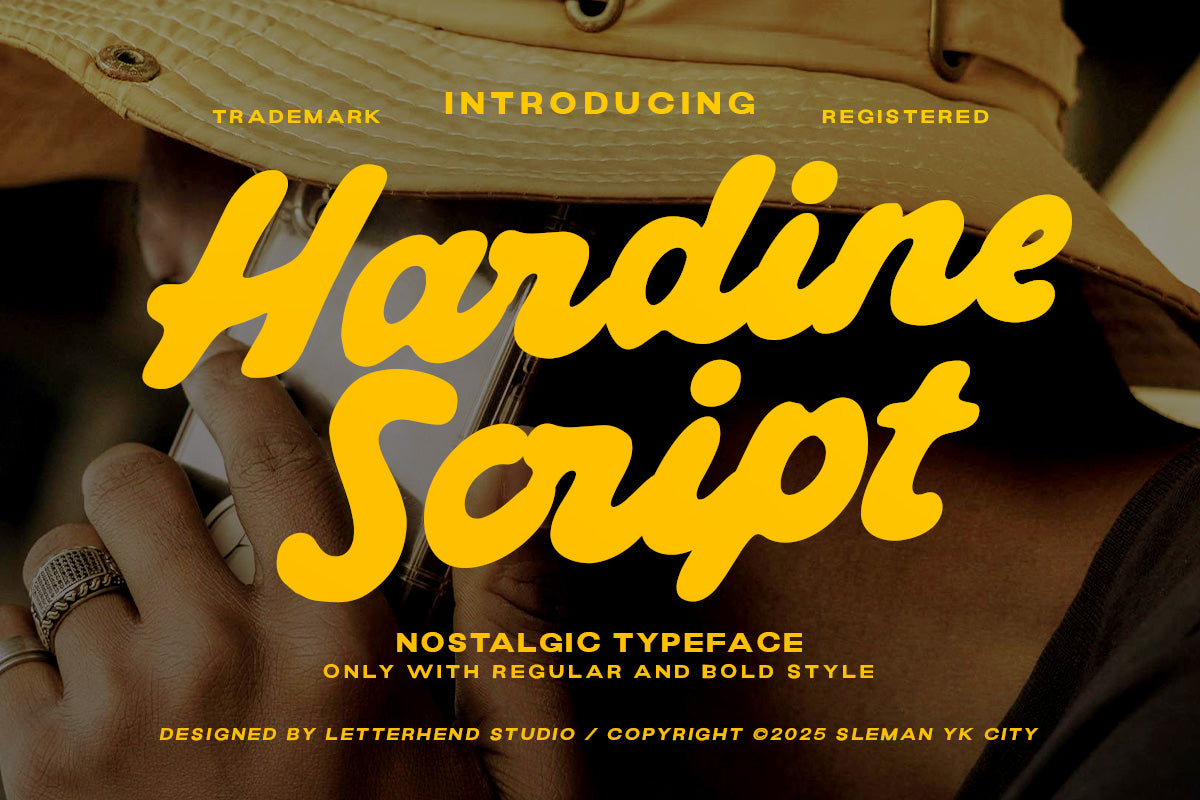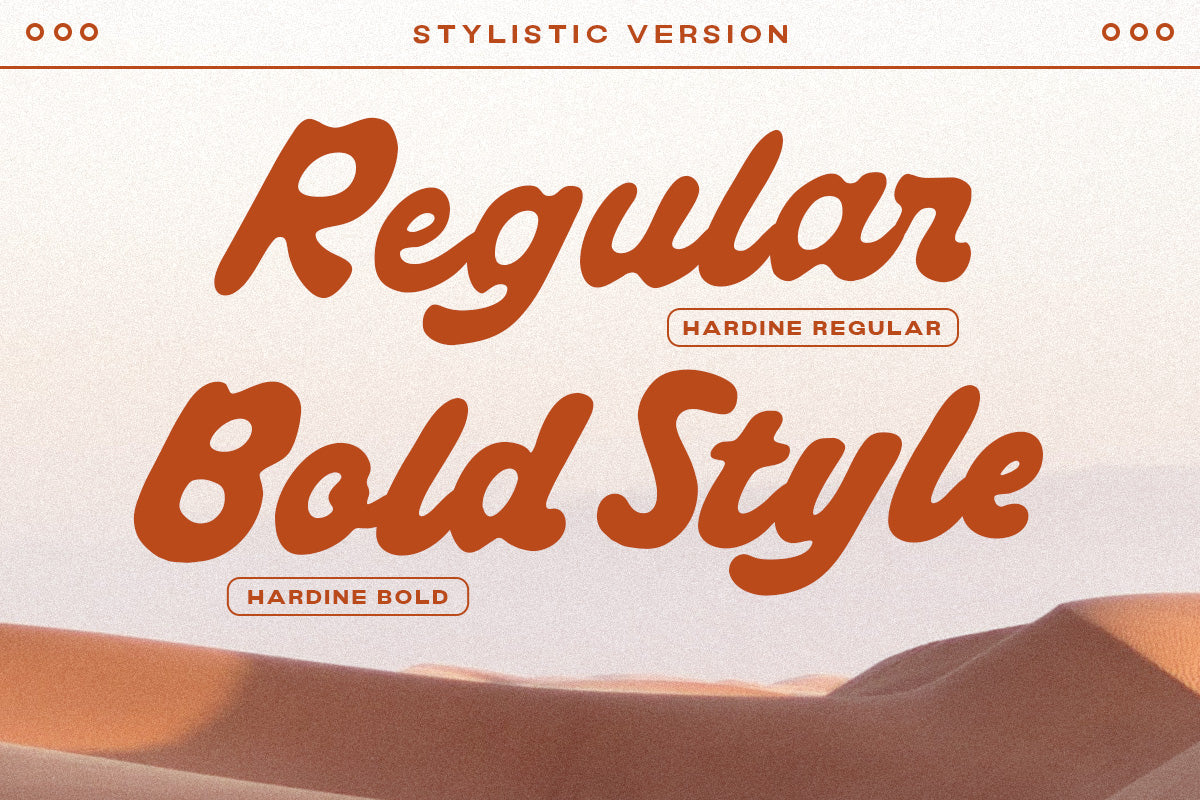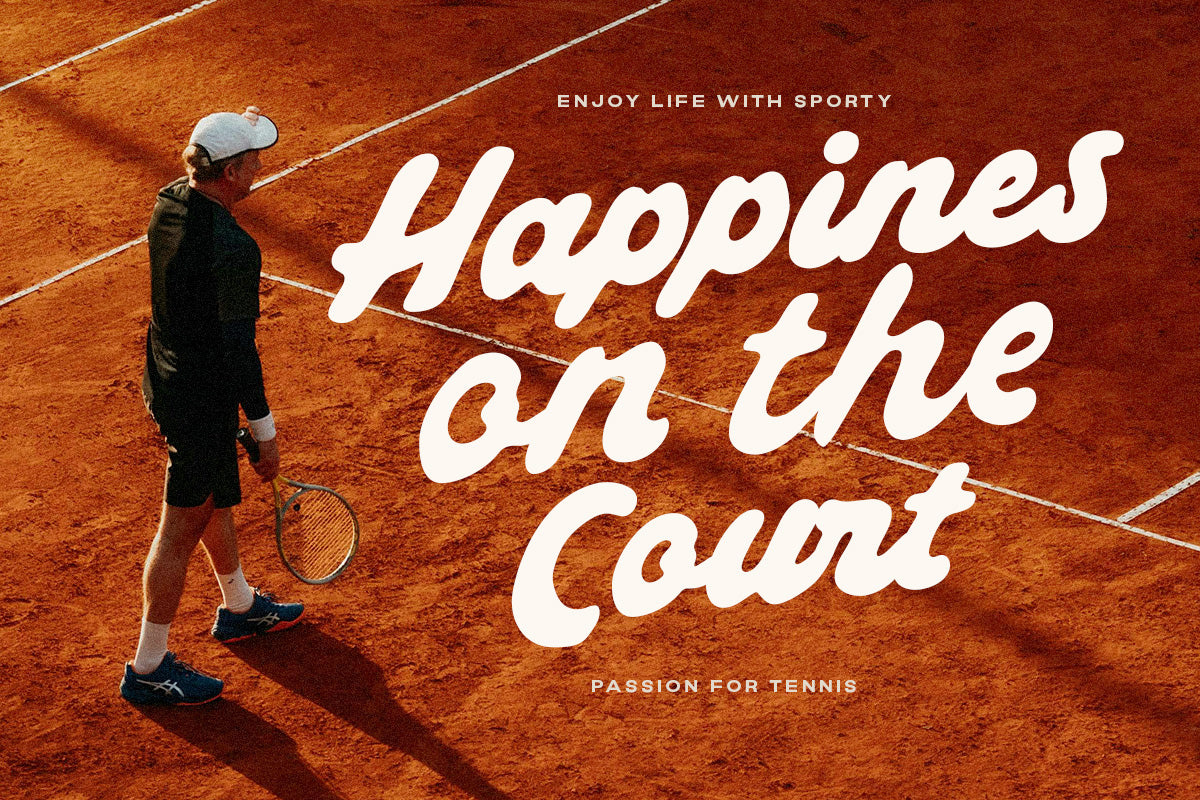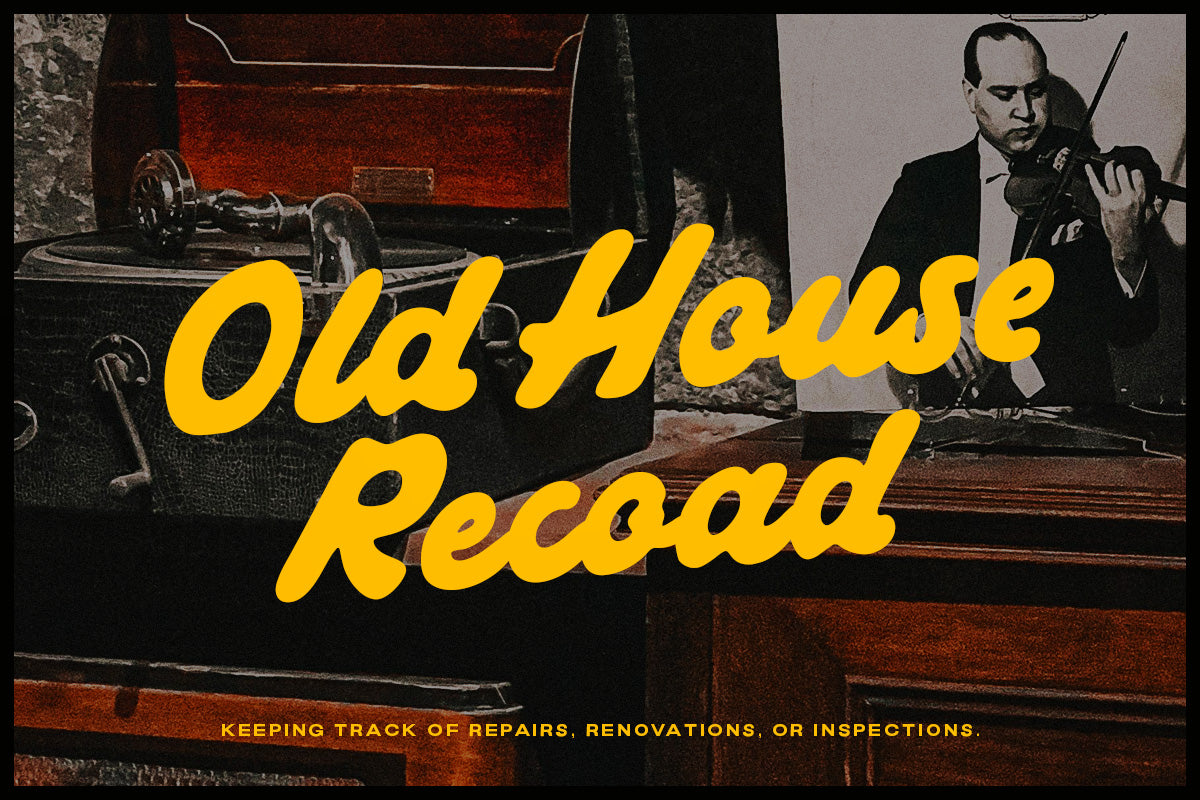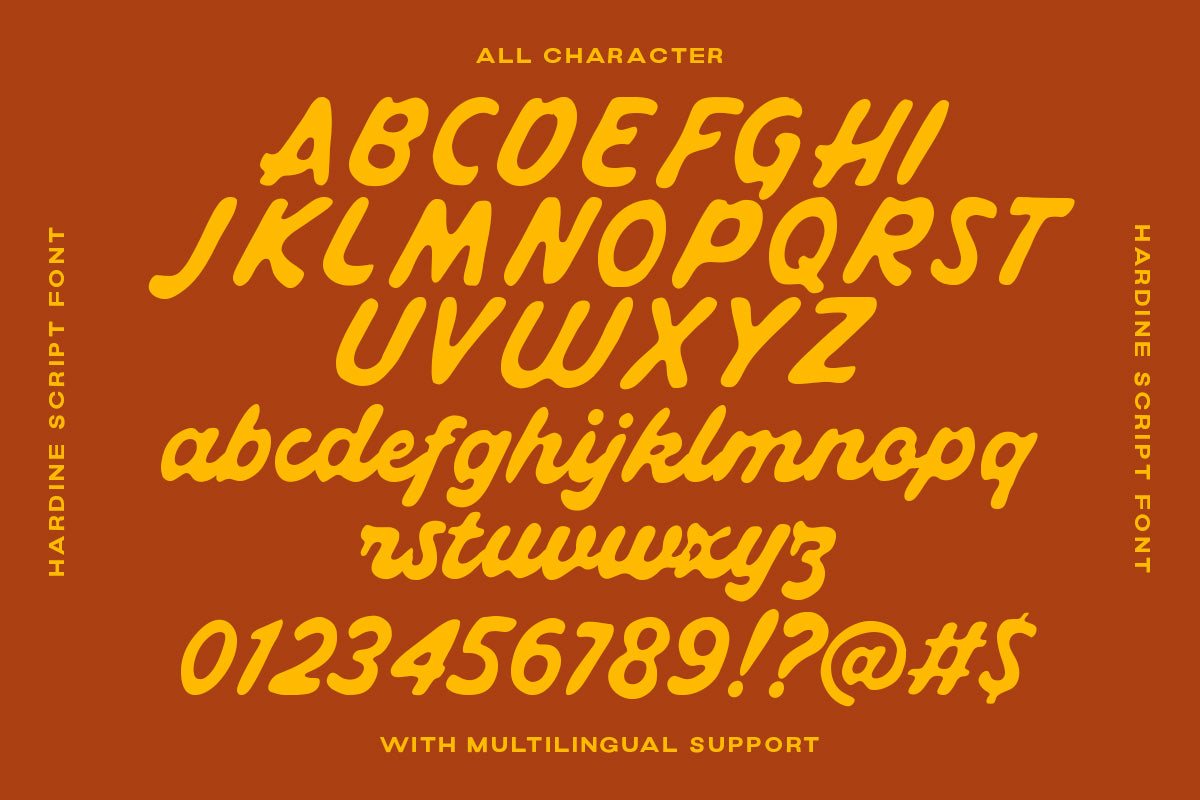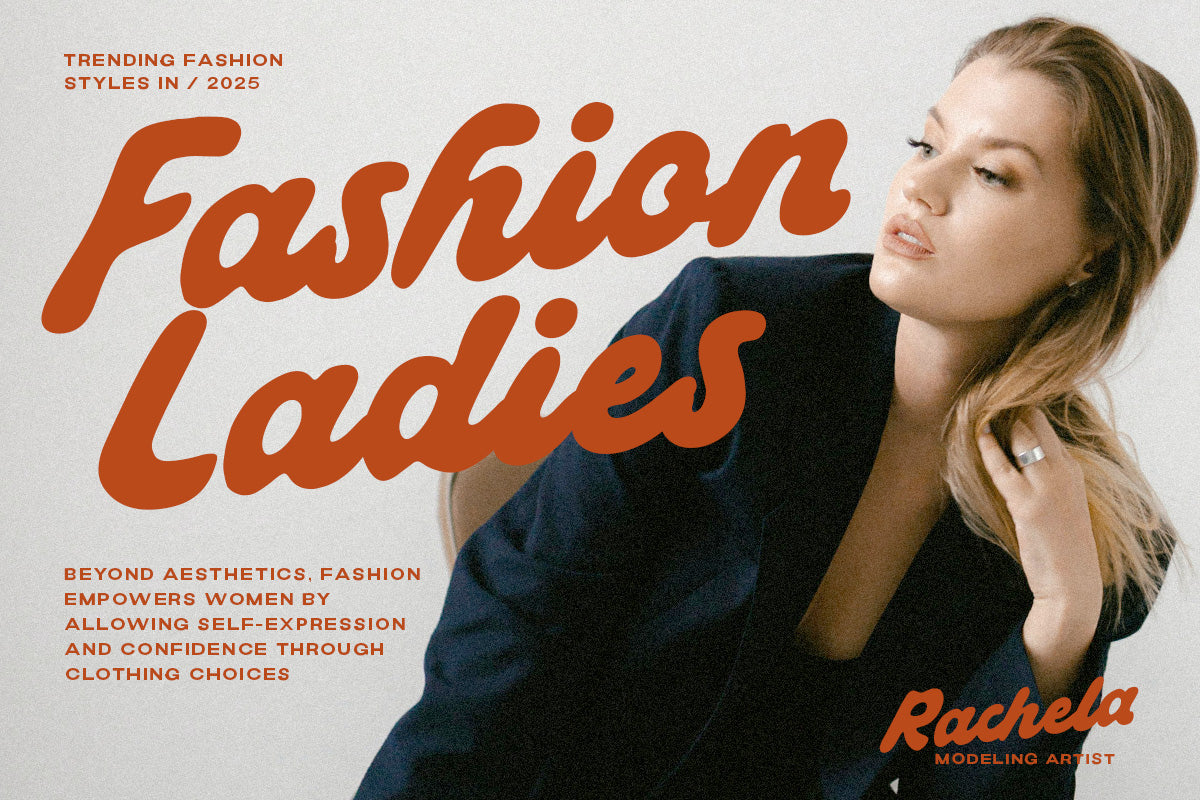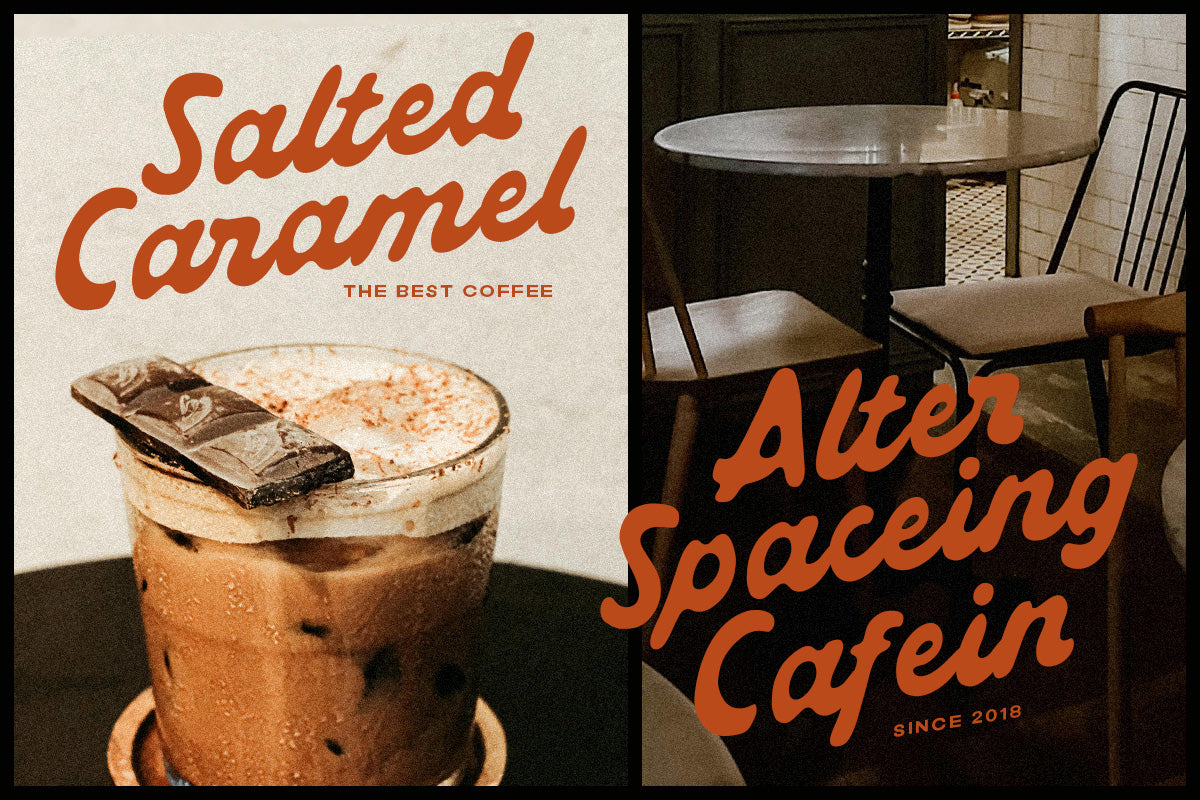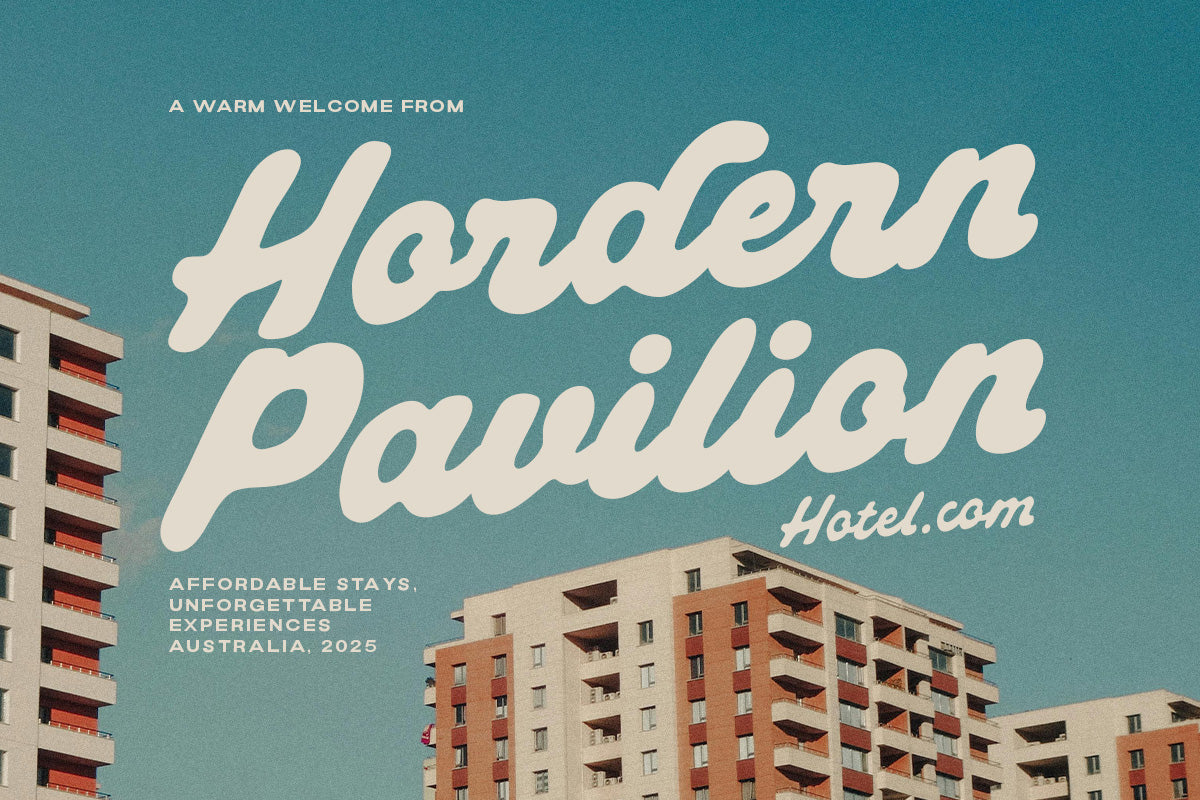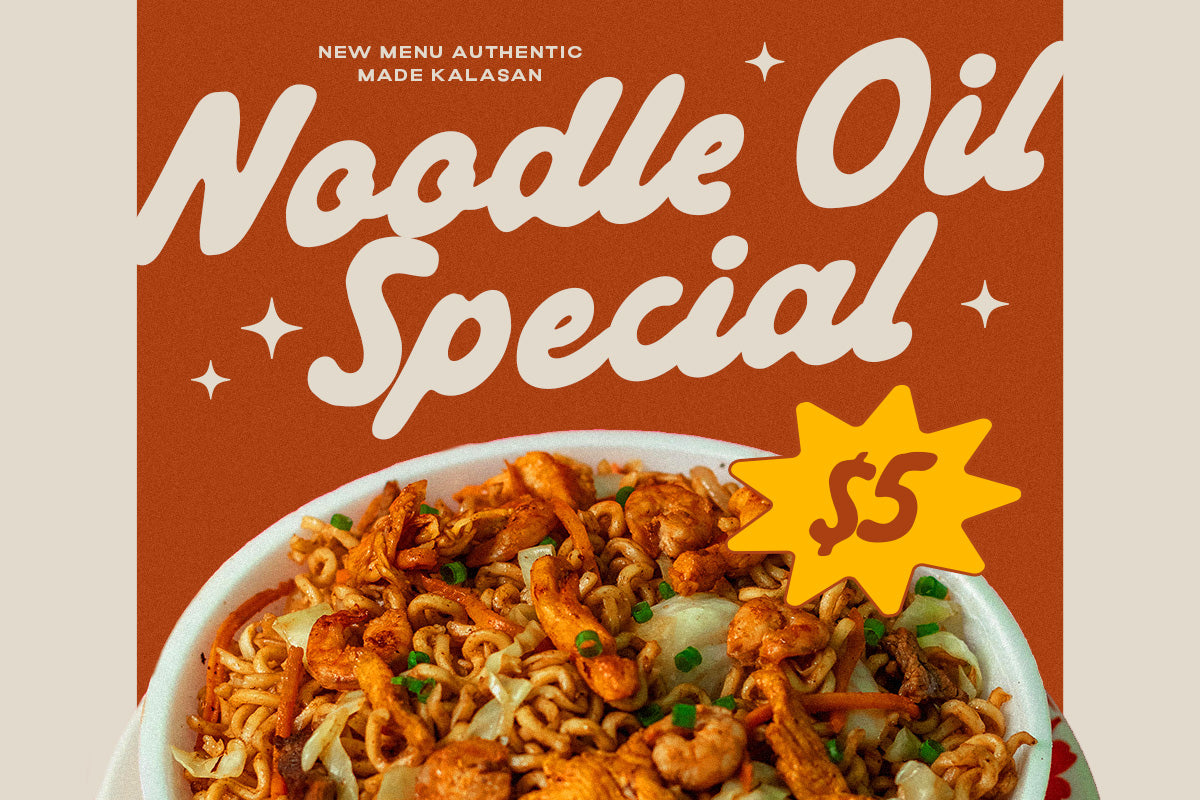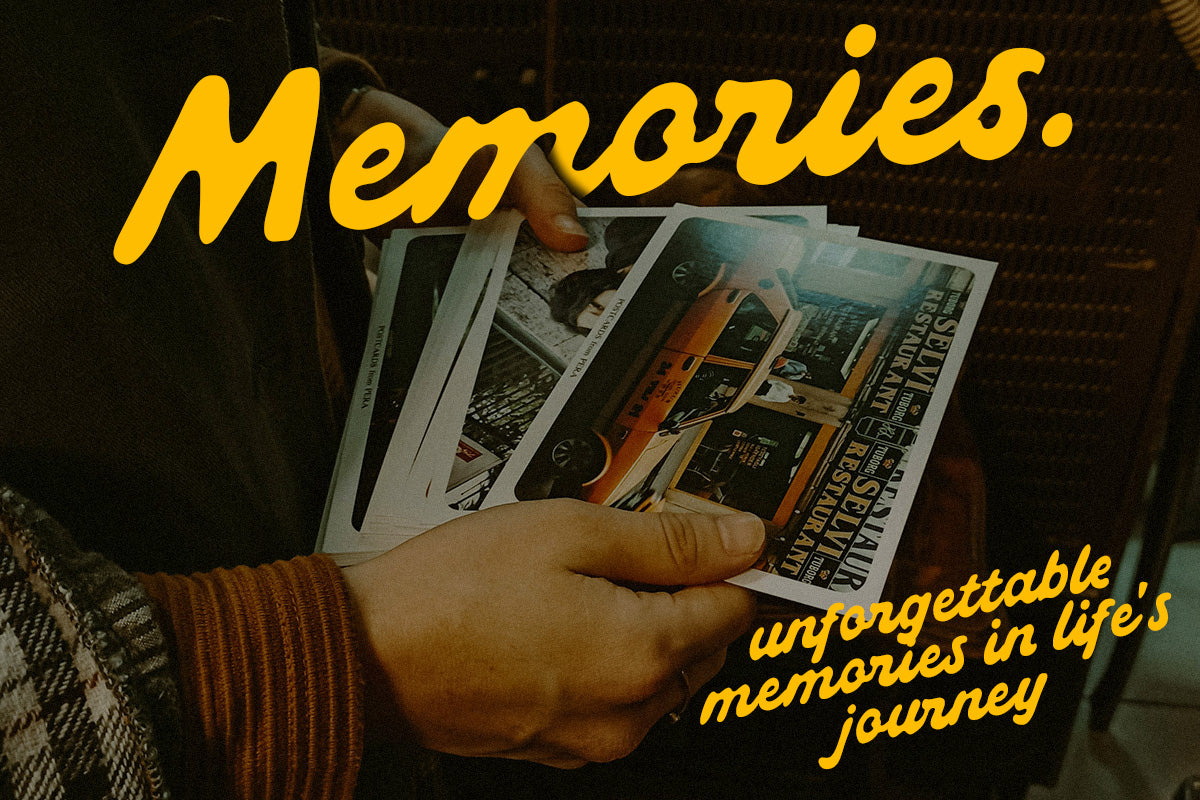
Hardine Script is a bold and nostalgic typeface with a vintage charm and modern versatility, perfect for branding, posters, apparel, and retro-inspired designs. Its smooth curves and strong letterforms bring a warm, handcrafted feel while maintaining a dynamic, expressive look. Ideal for projects that need a mix of confidence and personality.
Features:
Uppercase & lowercase
Numbers and punctuation
Alternates & Ligatures
Multilingual Support